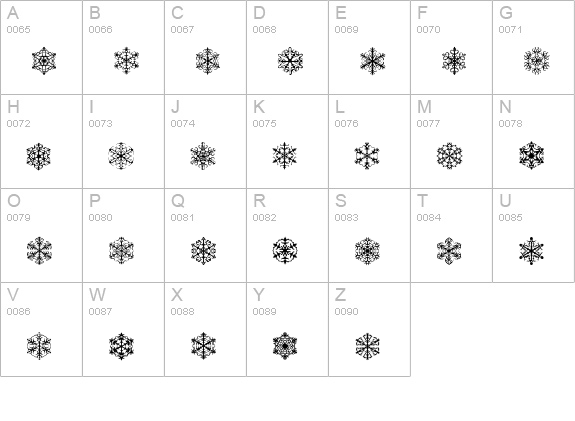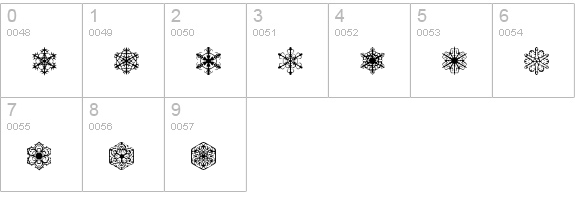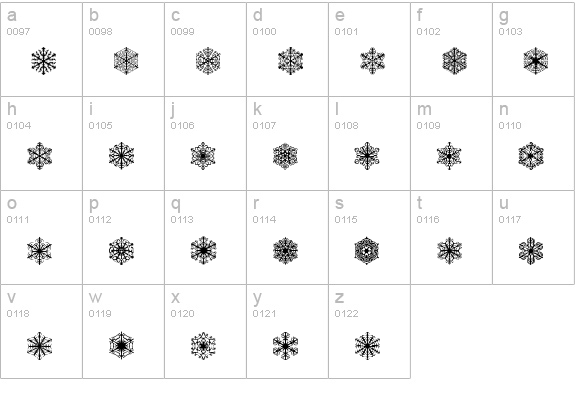
Faux Snow BRK is a stunningly beautiful font that perfectly captures the essence of delicate snowflakes gently falling from the sky. This font is an excellent choice for any winter-themed project, as it adds a touch of whimsy and elegance to your designs. Crafted with meticulous attention to detail, Faux Snow BRK features intricately designed snowflake-shaped letters that create a mesmerizing visual impact. Each character is carefully crafted to mimic the unique and intricate patterns found in real snowflakes, making this font truly one-of-a-kind. One of the best things about Faux Snow BRK is that it is available for free download at FontsMarket.com. You can effortlessly add this enchanting font to your collection and use it in a wide range of creative projects without any cost. Whether you're designing holiday cards, winter-themed invitations, or creating captivating social media graphics, Faux Snow BRK will bring a touch of magic to your work. With its versatility and timeless appeal, Faux Snow BRK is a font that will never go out of style. Its ethereal beauty and unique design make it a perfect choice for any project that aims to capture the essence of winter wonderland. So, why wait? Head over to FontsMarket.com and get your hands on this mesmerizing font for free. Let Faux Snow BRK transform your designs into a winter dream come true.